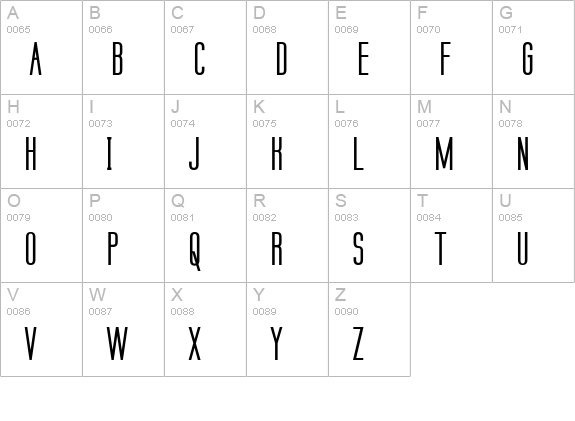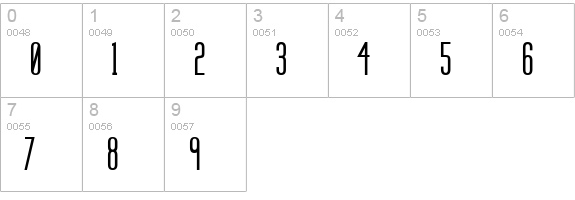
Labtop Secundo Bold is a strong, high-contrast variant in the Labtop typeface family \xE2\x80\x94 well suited to headlines, attention-grabbing titles, and strong calls-to-action.
Labtop Secundo Bold font is a modern and versatile typeface that exudes confidence and sophistication. With its bold and eye-catching design, this font is perfect for making a statement in your projects. Whether you're working on a professional presentation, a creative design, or just want to add a touch of elegance to your work, Labtop Secundo Bold font is sure to impress. The best part? Labtop Secundo Bold font is completely free to download at FontsMarket.com. This means you can easily access this stylish font and elevate your designs without breaking the bank. Don't miss out on the opportunity to enhance your projects with the bold and impactful Labtop Secundo Bold font, available for free at FontsMarket.com.